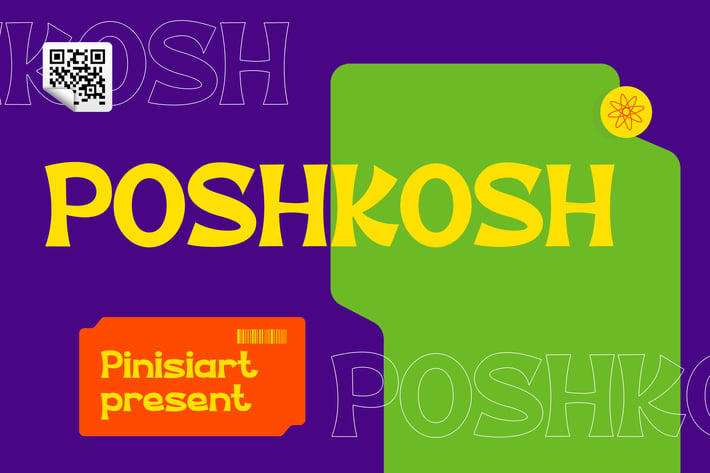
POSHKOSH - Display Font
An instant attention grabber, POSHKOSH will be making head turn, steps stop, and lips whispering about your current event.
Suit perfect for youth books market, online games, extreme sport event posters, school supplies font, poster, movie title, youtube covers, youtube thumbnails, social media page covers, and so on...